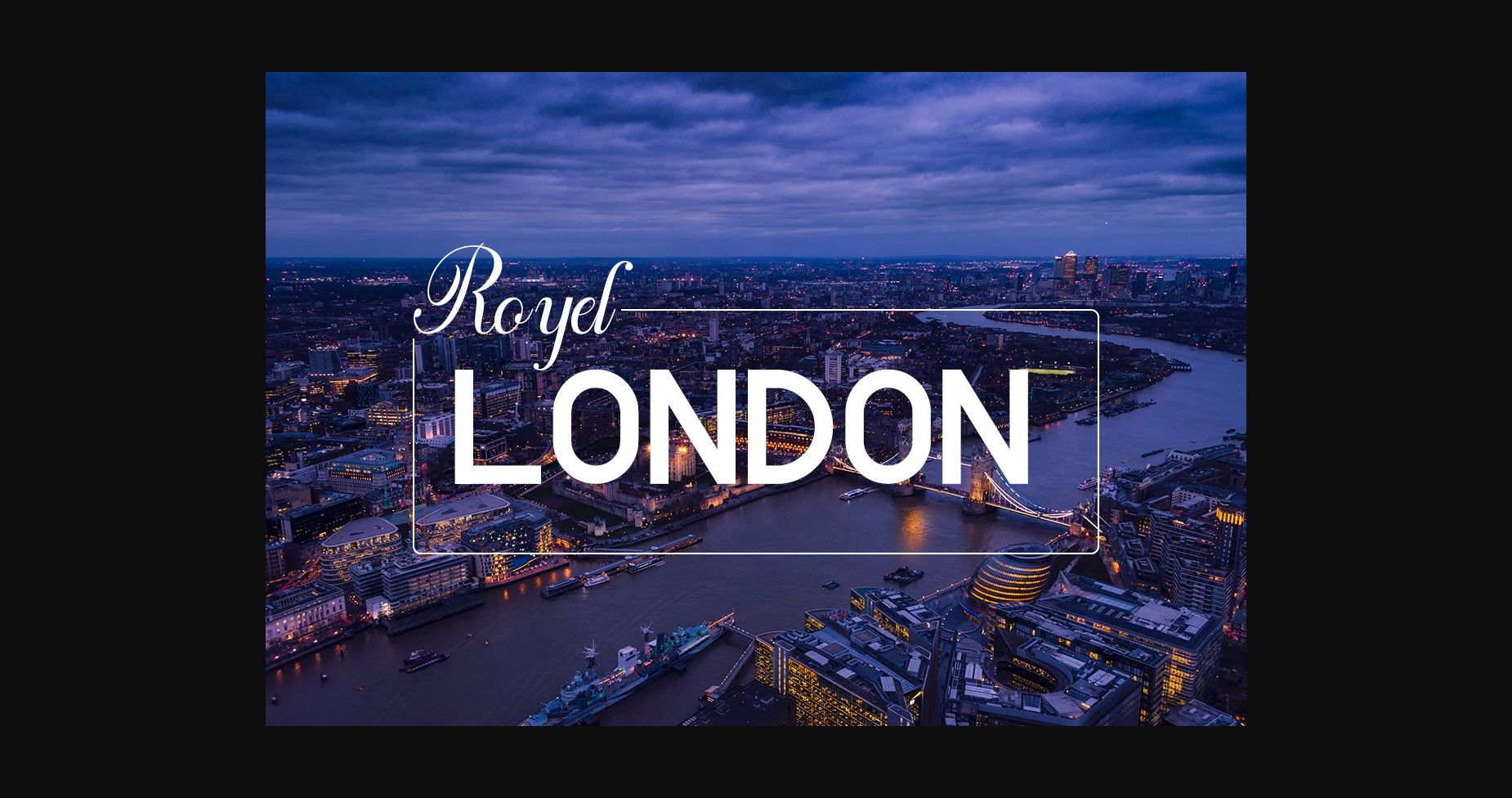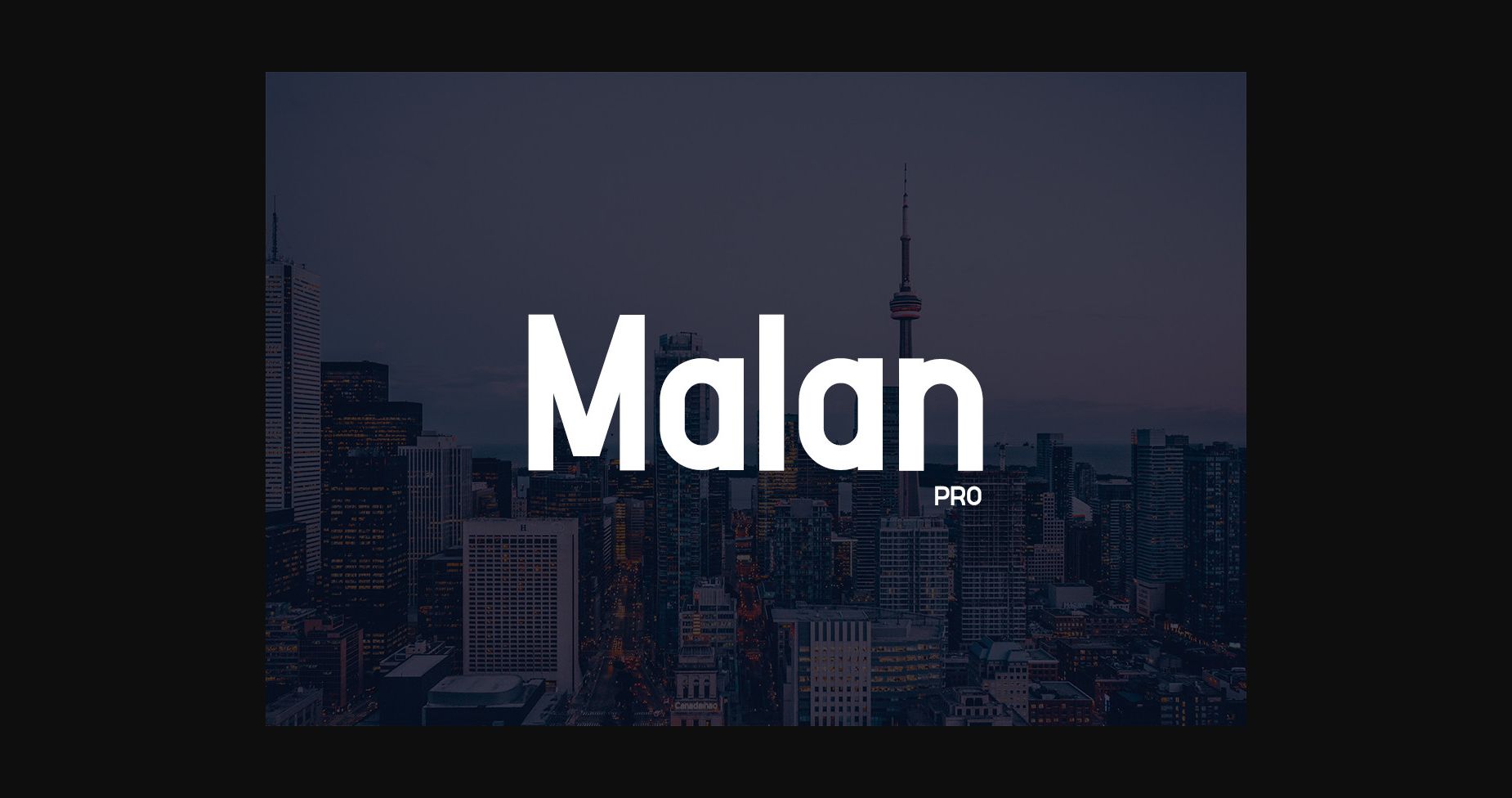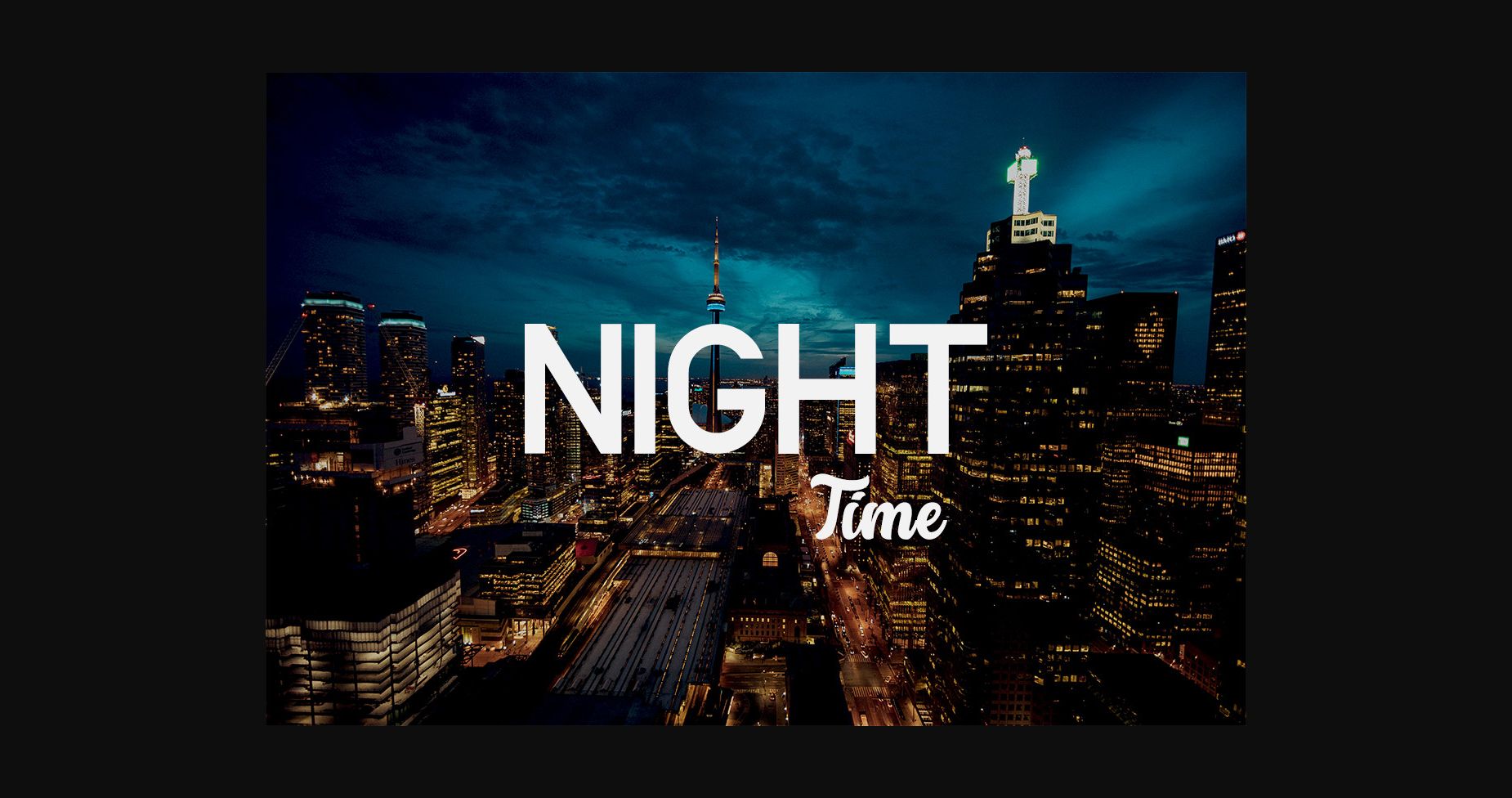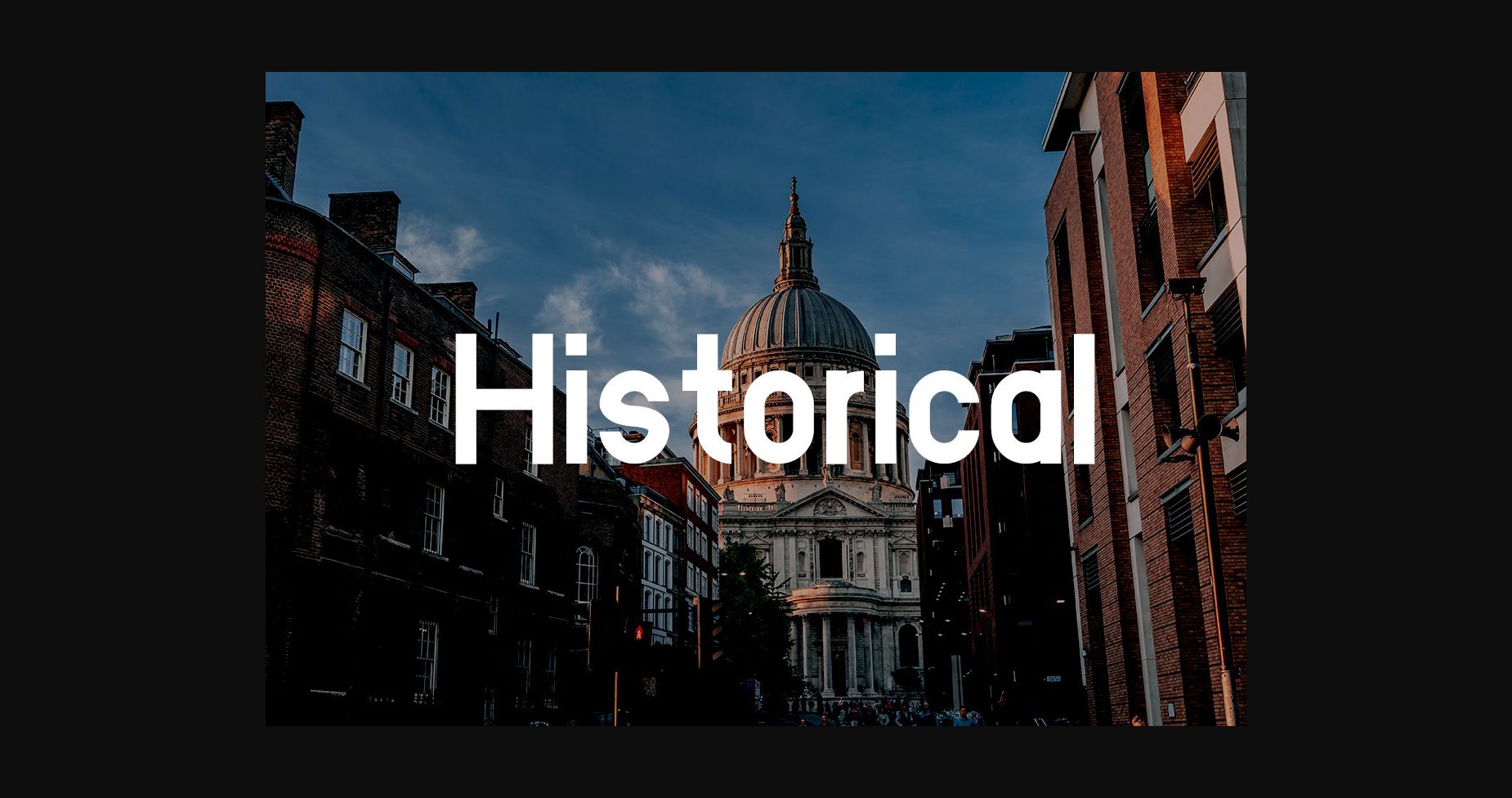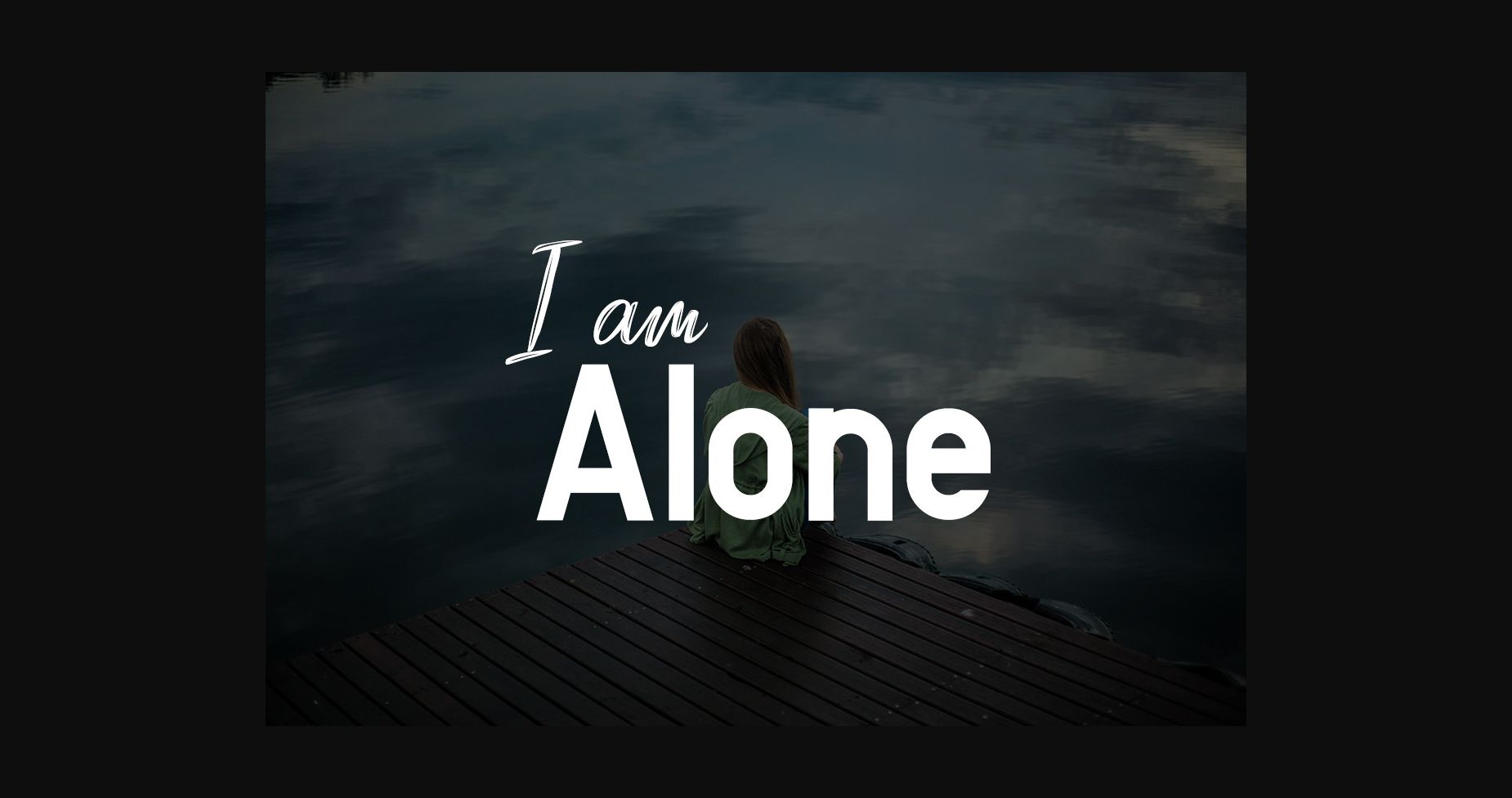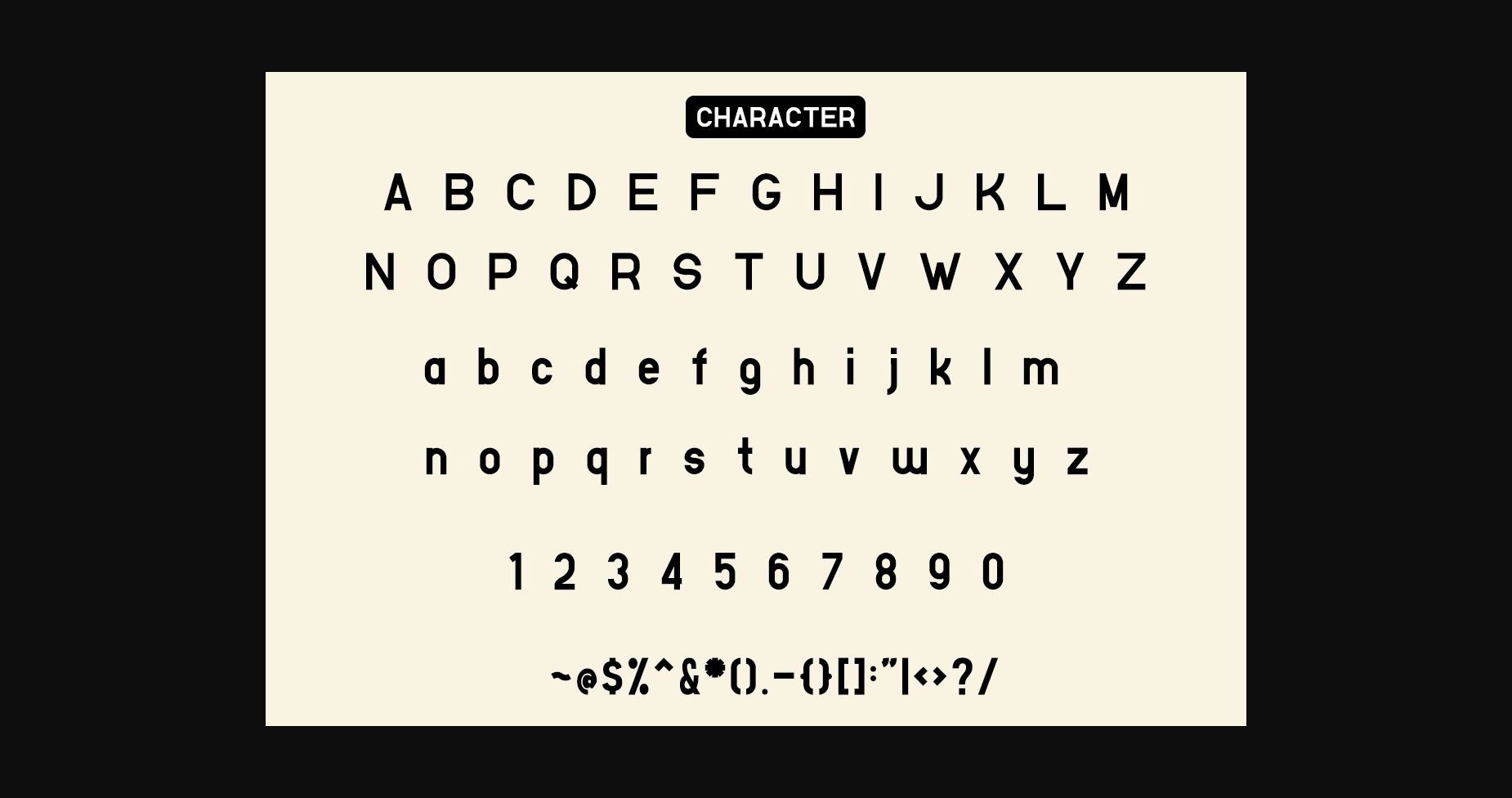
Malan pro is a clean and neat sans serif font. It can easily be matched to an incredibly large set of projects, so add it to your creative ideas and notice how it makes them stand out!